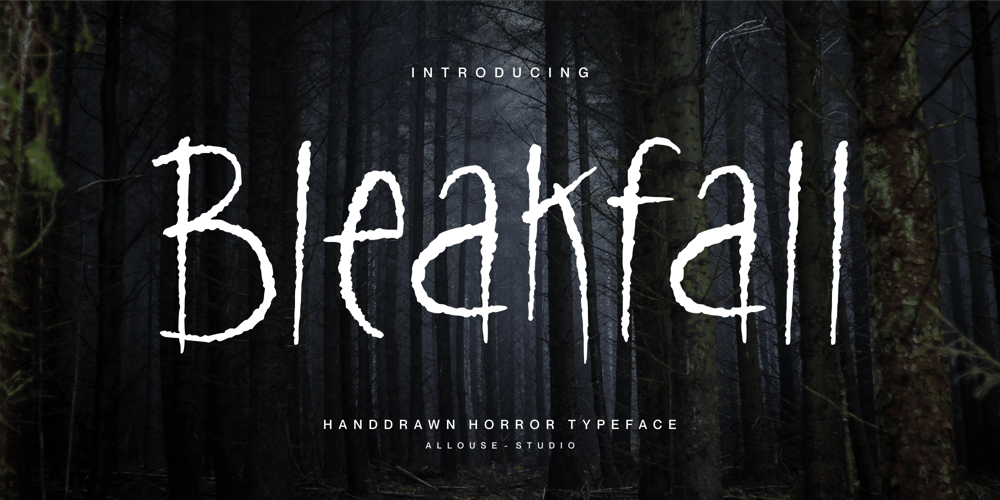
Bleakfall
Bleakfall font
Bleakfall Font Family was designed by Fachrizal Yusuf and published by Allouse Studio. Bleakfall contains 1 styles and family package options. Proudly Present, Bleakfall a Handdrawn Horror Typeface.Bleakfall is perfect for any titles, logo, product packaging, branding project, megazine, social media, wedding, or just used to express words above the background.Bleakfall also come with Multi-Lingual Support.Enjoy the font, feel free to comment or feedback, send me PM or email. Thank You!